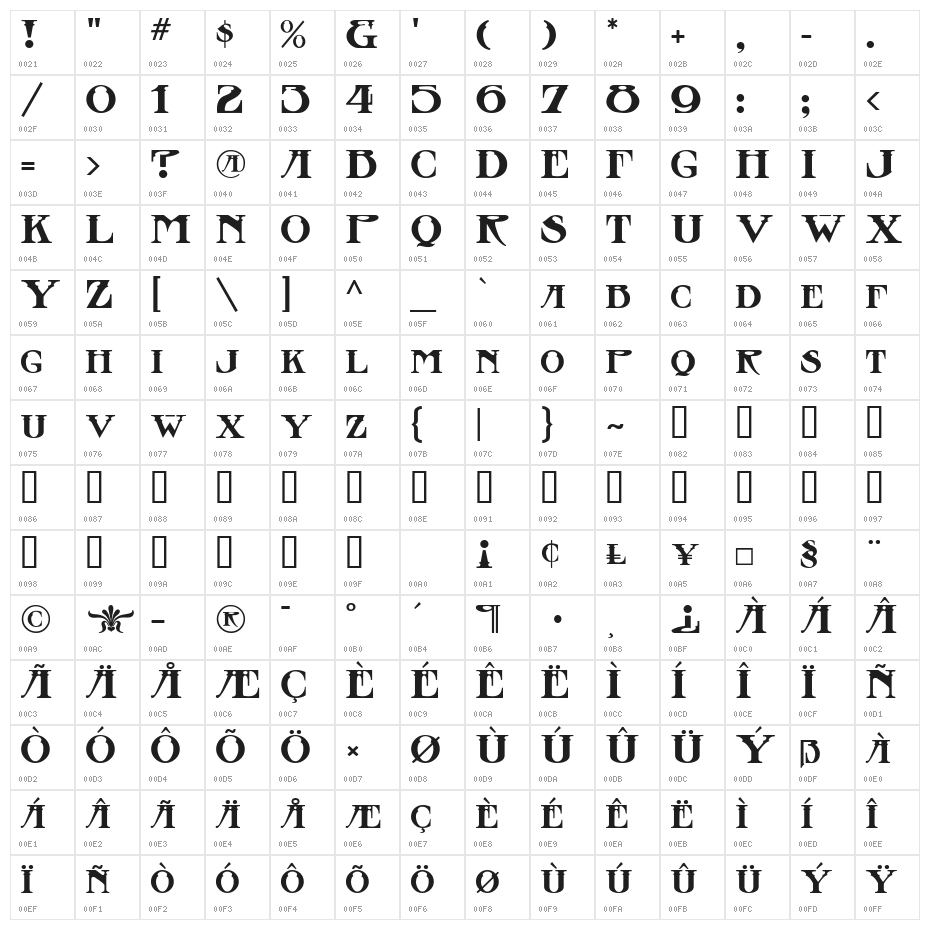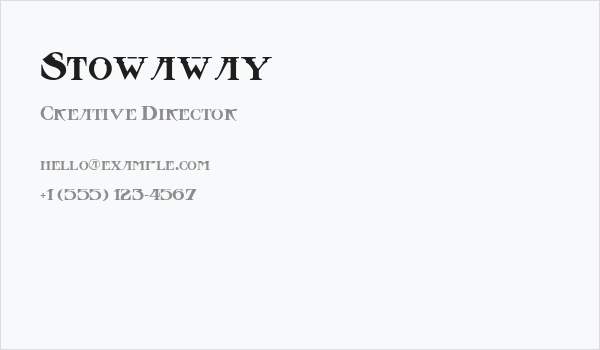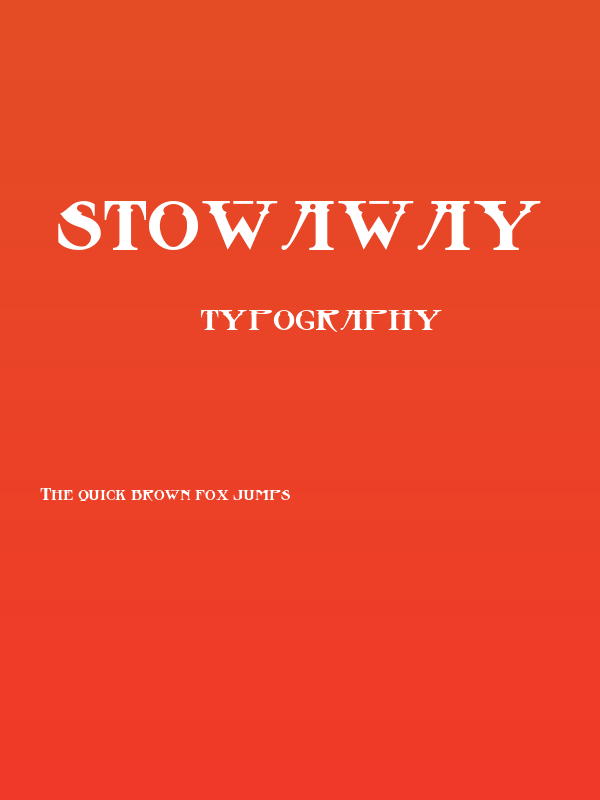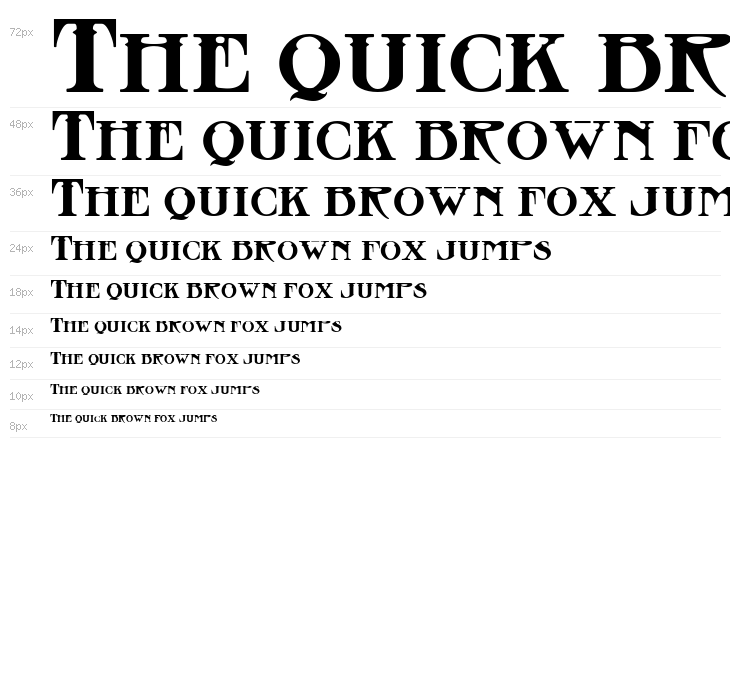
Stowaway Font
Stowaway Description
This font features a bold and dramatic style with sharp serifs and a distinct vintage flair. The uppercase letters are characterized by their strong, angular lines and pronounced serifs, giving them a commanding presence. The lowercase letters maintain a consistent style, with slightly more rounded edges that complement the uppercase set. Numbers are equally bold, with a unique design that ensures readability while maintaining the font's overall aesthetic. Special characters are crafted with the same attention to detail, making them suitable for various design needs. The font's high contrast between thick and thin strokes adds to its striking appearance, making it ideal for attention-grabbing headlines or logos.
Overall StyleVintage
Proposed ProjectsIdeal for vintage-themed posters, branding, logos, and editorial design.